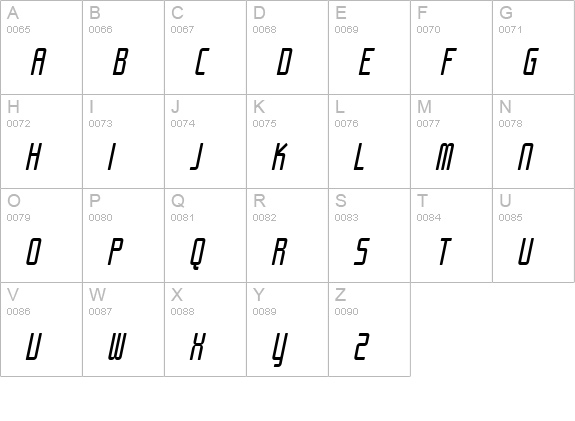
SF Chrome Fenders Condensed Oblique is a distinctive, condensed-width, italic variant in the SF typeface family \xE2\x80\x94 well suited to design and typography projects.
SF Chrome Fenders Condensed Oblique font is a sleek and modern typeface that exudes style and sophistication. Its condensed form adds a touch of elegance, making it perfect for headlines, logos, and branding materials. The oblique angle of this font adds a dynamic and edgy look, making it stand out from the crowd. It brings a sense of movement and energy to any design, making it ideal for projects that require a bold and eye-catching aesthetic. SF Chrome Fenders Condensed Oblique font is versatile and can be used in a variety of design projects, from website headers to print materials. Its clean lines and sharp edges make it easy to read and visually appealing, ensuring that your message gets across effectively. One of the best features of SF Chrome Fenders Condensed Oblique font is that it is freely available to download at FontsMarket.com. This means that you can access this amazing font without any cost, allowing you to enhance your designs without breaking the bank. Whether you're a professional designer or a hobbyist, SF Chrome Fenders Condensed Oblique font is a must-have in your font collection. Its modern and stylish design, combined with its free availability, makes it a valuable asset for any creative project. So don't miss out on this fantastic font and download it for free at FontsMarket.com today!